Isabella Script by Seniors
Isabella is handwritten stylish copperplate calligraphy fonts, combines from copperplate to contemporary typeface with a dancing baseline, classic and elegant touch.
Isabella features 300+ glyphs and 118 alternate characters. including initial and terminal letters, alternates, ligatures and multiple language support.
Can be used for various purposes.such as headings, signature, logos, wedding invitation, t-shirt, letterhead, signage, lable, news, posters, badges etc.
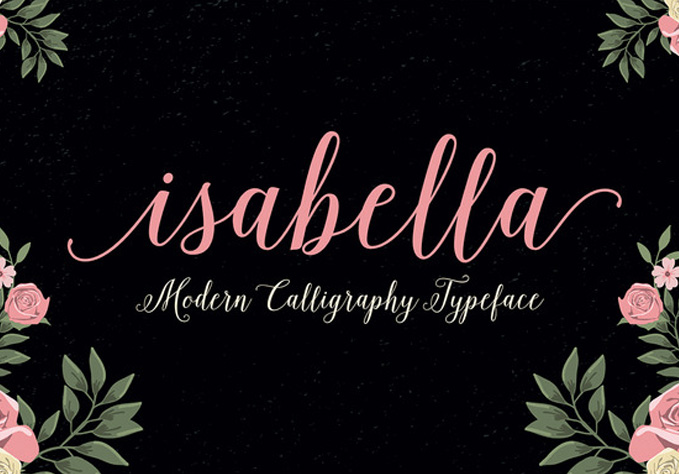
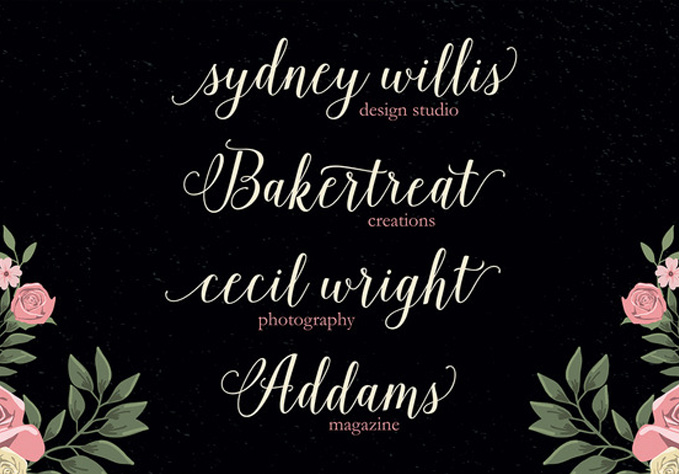
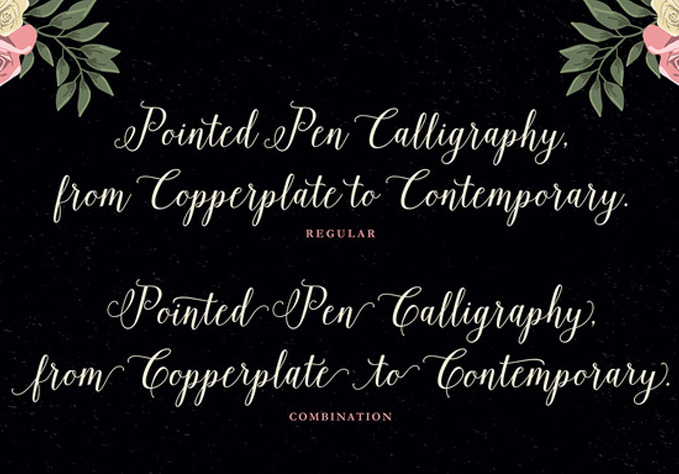
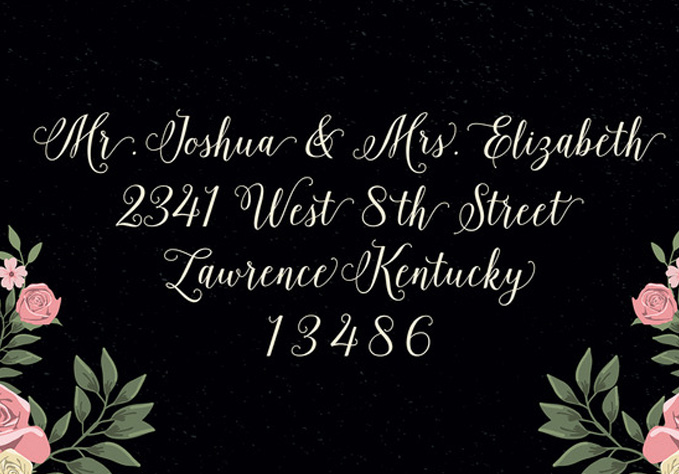
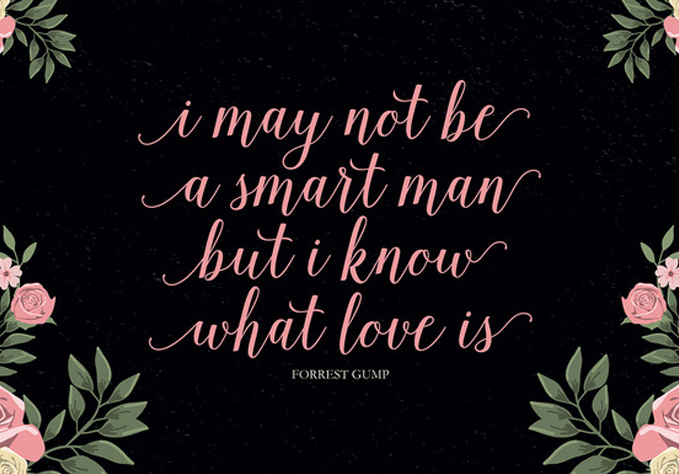
Kathya Script by Seniors
Kathya Script is a contemporary calligraphic typeface, a mixture of retro script and modern sans serif. get a classic and elegant touch.
With almost 430 glyphs and 176 alternate characters, multiple language support, the choice of useful ligatures, swash and more.
Can be used for various purposes.such as logos, wedding invitation, t-shirt, letterhead, signage, lable, news, posters, badges etc.
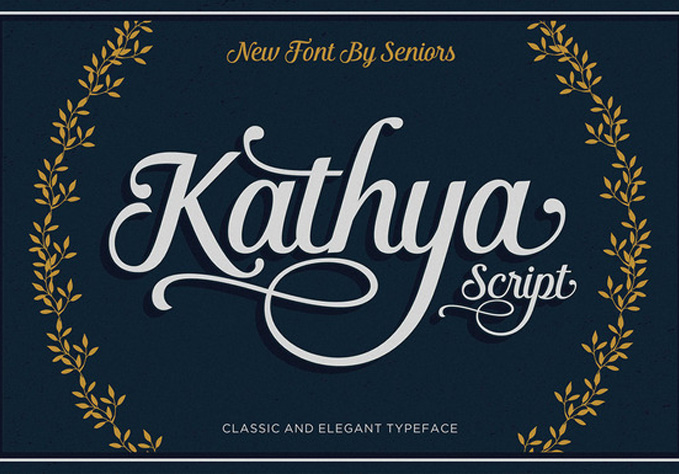
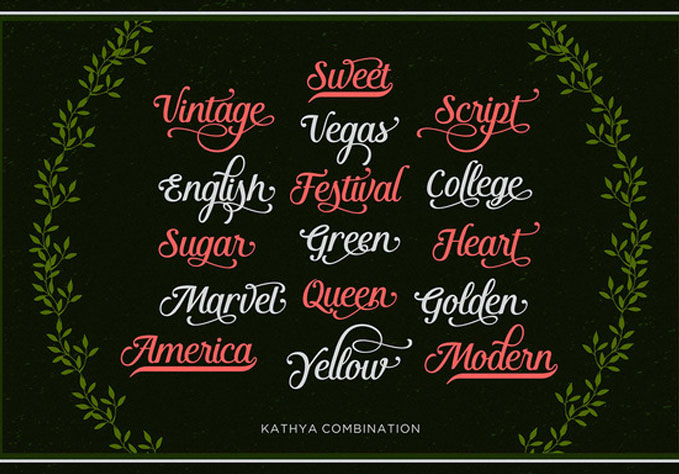
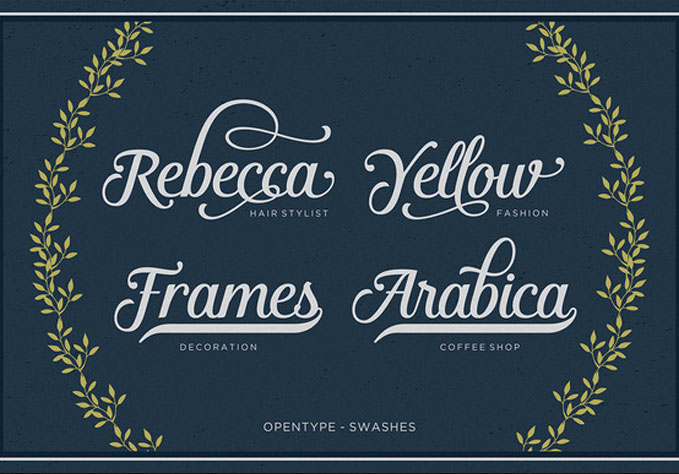
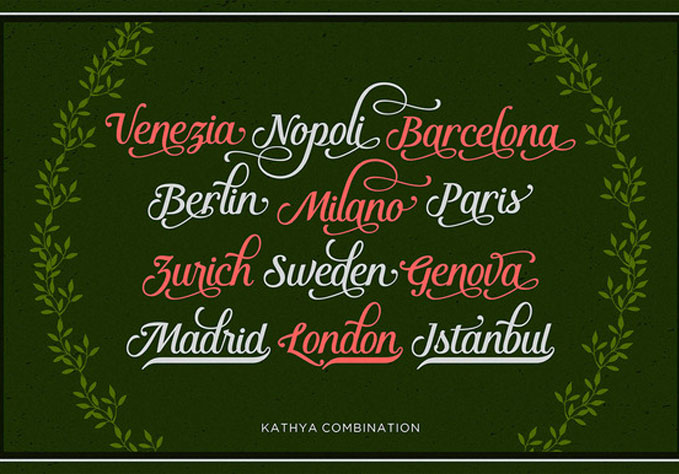
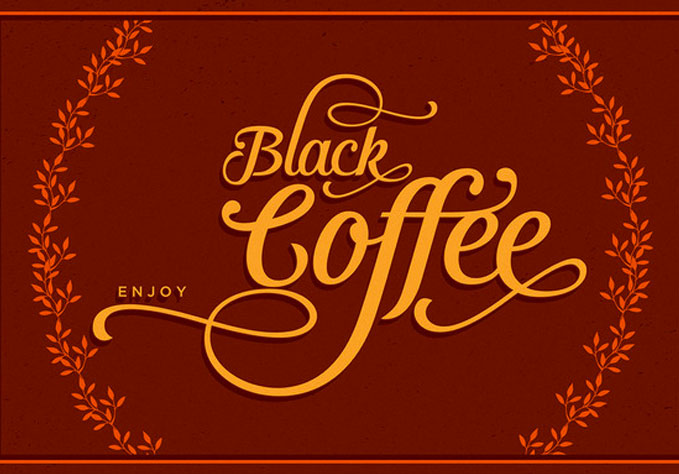
Andalusia Script by Seniors
Andalusia Script
Andalusia is a Romantic Typefaces. bold, elegant & fun Vintage Script font.
With almost 423 glyphs and 160 alternative characters, contain with opentype features. Stylistic alternates,swash and more.
can be used for various purposes.such as logos, wedding invitation, t-shirt, letterhead, signage, lable,
news, posters, badges etc.
Shepia Script by Seniors
Shepia is a Monoline Cursive Handwriting. classic and fun vintage script.
With almost 390 glyphs and 188 alternative characters, contain with opentype features. Stylistic alternates, Ornament, swash and more.
Can be used for various purposes.such as logos, wedding invitation, t-shirt, letterhead, signage, labels, news, posters, badges etc.
Everglow Script by Seniors
Everglow is a Script Retro font. a bold, classic,and fun vintage script.
With almost 560 glyphs and and 322 alternative characters, contain with opentype features. Stylistic alternates, Ornament, swash and more.
can be used for various purposes.such as logos, wedding invitation, t-shirt, letterhead, signage,
news, posters, badges etc.
Shintia Script by Seniors
Shintia Script is highly legible Script typeface, Get touch of a bold, classic and fun Vintage Script font,
With almost 215 glyphs and contain with opentype features. Stylistic alternates, swash and more.
can be used for various purposes.
such as posters, t-shirt, signage, logos, news, badges etc. To enable the OpenType Stylistic alternatives
Grounday by Seniors
Grounday Font
Grounday is highly legible sans typeface, a bold compressed sans typeface, in uppercase characters only, Applies to headlines and branding. The solid version is accessed by typing with the uppercase keys,